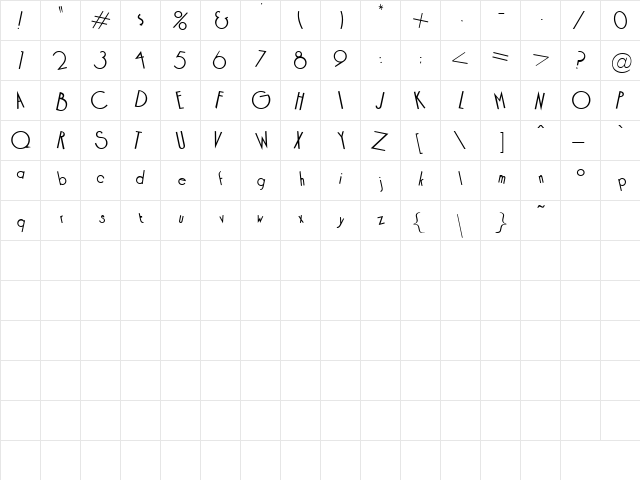
Slum Regular
Design Context for Slum Typeface
Slum is a composed and adaptable typeface that performs quietly and consistently across a wide range of design contexts.
Pro Tip: Use Slum in both headline and body roles to test its range before committing to a single application.